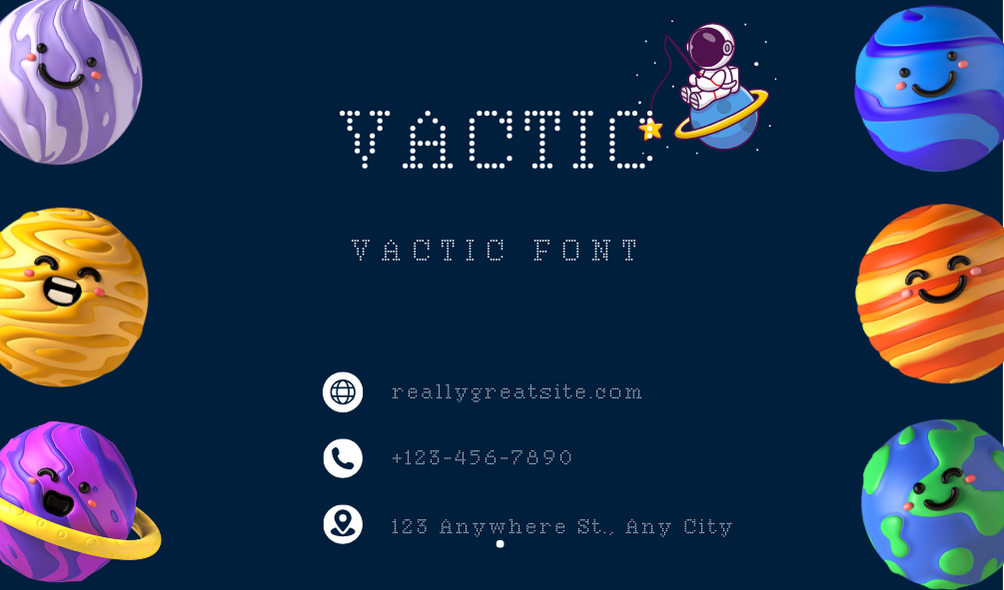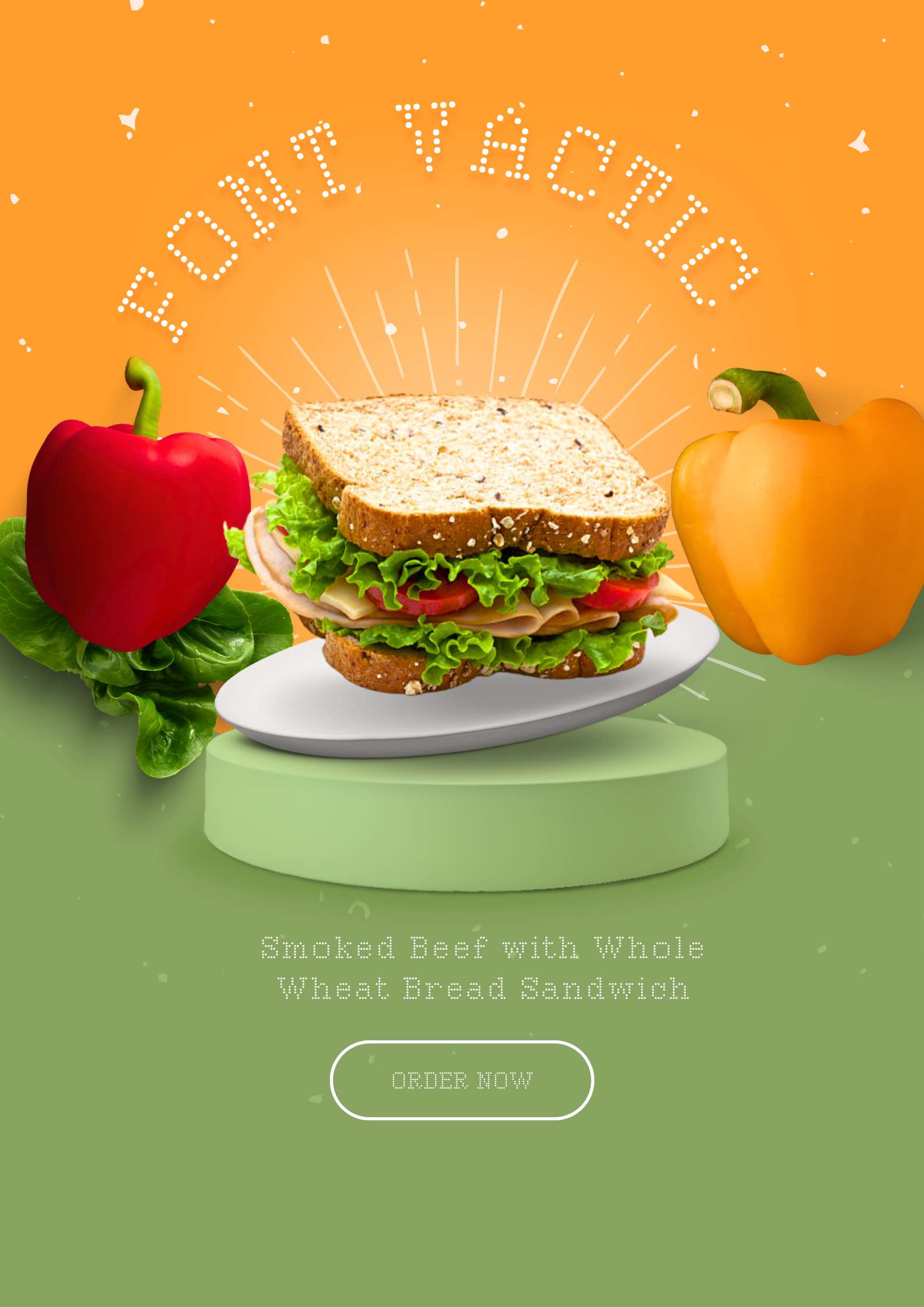
Vactic is an ideal font choice for your playful design projects. The font belongs to the Regular subfamily. It was created by Ray Larabie and is available for personal use at no cost.
Vactic